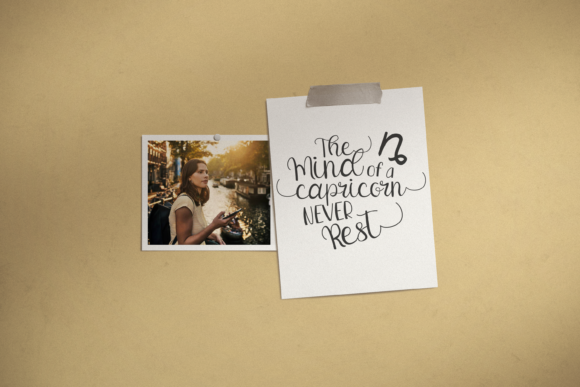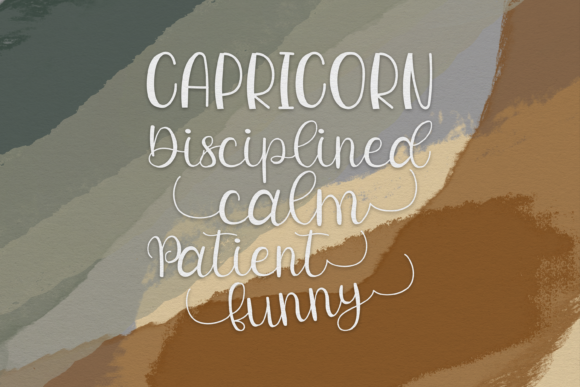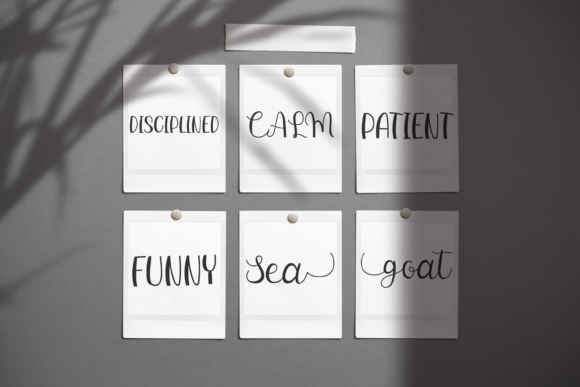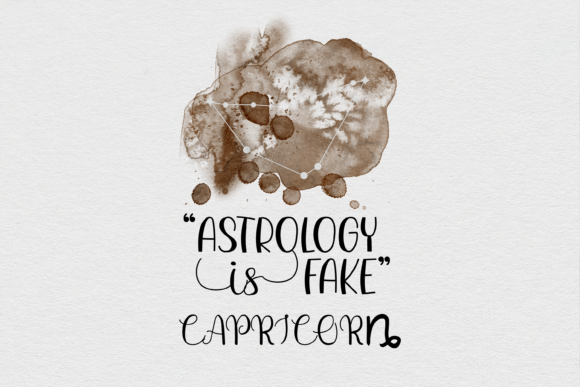
Designing with Serenity: Unveiling the Calm Capricorn Duo Font
There’s nothing quite like the feeling of being completely in the zone, surrounded by the soft hum of creativity as your ideas start flowing. You’re crafting, designing, or writing, and everything just feels right. But what if you could add a little extra magic to your projects, something that brings a sense of calm and sophistication to your work?
Enter the Calm Capricorn Duo Font, a beautiful pair of fonts designed to complement each other perfectly. This harmonious duo consists of a script font and a display font, ideal for adding a chic and cheery touch to your crafts. Whether you’re working on a personal project or creating for a client, the Calm Capricorn Duo Font is sure to bring a sense of serenity to your designs.
Calm Capricorn Duo Font Key Features
- Font Style: Duo font with a calm and elegant design, suitable for both body and display text.
- Unique Characteristics: The font features a unique combination of modern and classic elements, making it perfect for designers seeking a calm yet elegant look.
Calm Capricorn Duo Font Review
Overall, I think the Calm Capricorn Duo Font is a great addition to any designer’s toolkit. It’s a clean, modern font that works well in a variety of contexts.
- ✨ Elegant and sophisticated design that makes it perfect for luxury branding.
- ✨ Highly legible, even at smaller font sizes.
- ✨ Excellent for use in body text, as well as headlines and titles.
- ⚠️ Limited character set, which may make it less suitable for languages that require a wide range of characters.
- ⚠️ May not be the best choice for fonts that require a lot of bolding or italicizing, as the design can become quite cluttered.
Overall, I would give the Calm Capricorn Duo Font 4 out of 5 stars. It’s a solid choice for designers who are looking for a clean, modern font that’s easy to read and use. However, it may not be the best choice for more complex font requirements.
For optimal results, use the Calm Capricorn Duo Font in combination with a calming color palette and minimalist design elements.
The Calm Capricorn Duo Font is ideal for:
- Personal branding and business cards
- Wedding websites and blogs